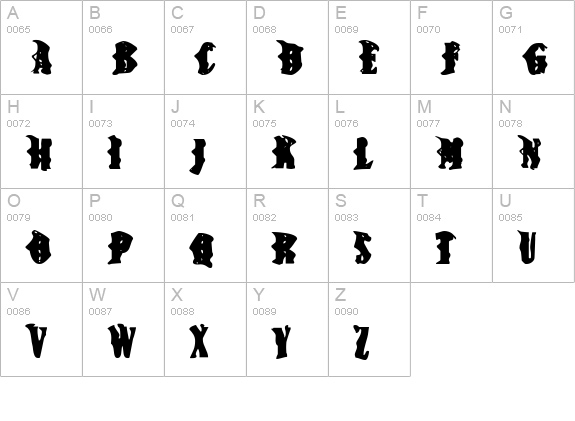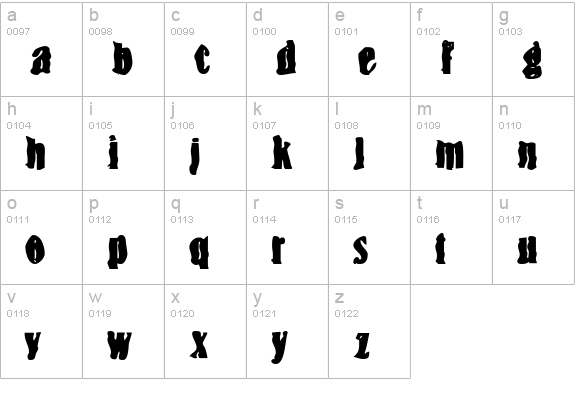
BN-Snake Font Details
Introducing the captivating BN-Snake font, a uniquely designed typeface that is sure to make a statement in your design projects. This font features intricate serpentine-like patterns that give it a mesmerizing and artistic appeal. With its sleek and modern look, BN-Snake font is perfect for adding a touch of sophistication to logos, branding, posters, and more. The best part? BN-Snake font is completely free to download at FontsMarket.com. That's right, you can easily enhance your creative projects with this stunning font without any cost. Don't miss out on the opportunity to elevate your designs with the distinctive charm of BN-Snake font. Download it today and unleash your creativity like never before!